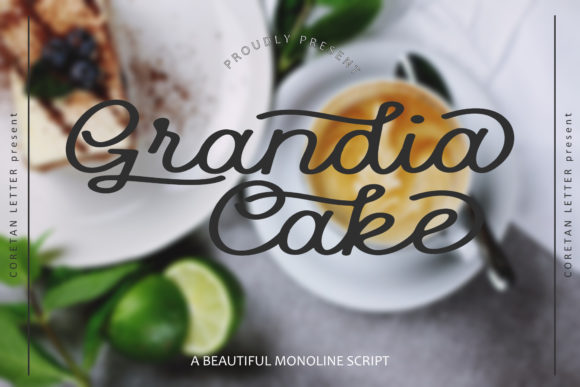
Presenting Grandia Cake Font, a delectable script font that will sweeten your designs with its charming, balanced characters. This font is crafted with meticulous care, featuring glyphs and swashes accessible effortlessly through PUA encoding, promising endless creative possibilities.
With Grandia Cake, your emails will be transformed into delightful treats, capturing the attention of your recipients with its elegant, cursive strokes. Each letter dances across the screen, carrying your messages with a touch of sophistication and flair. Embrace the power of Grandia Cake to elevate your emails and leave a lasting impression on your audience.
This remarkable font adapts effortlessly to a myriad of projects, bringing a touch of sweetness to logos, branding, invitations, and social media posts. Grandia Cake's captivating aesthetic will make your designs stand out from the crowd, whether you're creating marketing materials, personal projects, or simply adding a touch of whimsy to your everyday creations.
Imagine your designs adorned with Grandia Cake's graceful curves and delightful details. Picture your words flowing across the page, infusing your projects with a sense of joy and elegance. Grandia Cake is more than just a font; it's an invitation to express your creativity and captivate your audience with a visual feast.